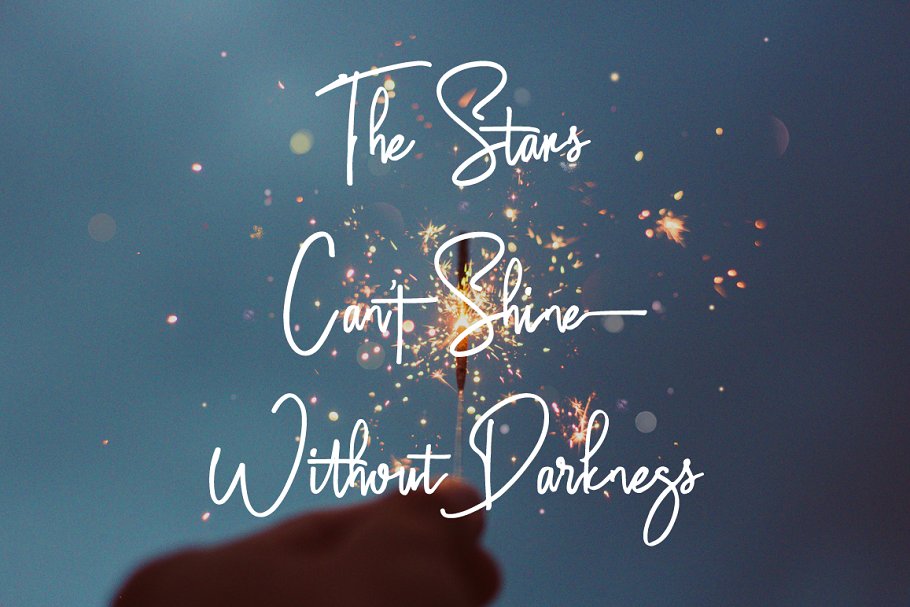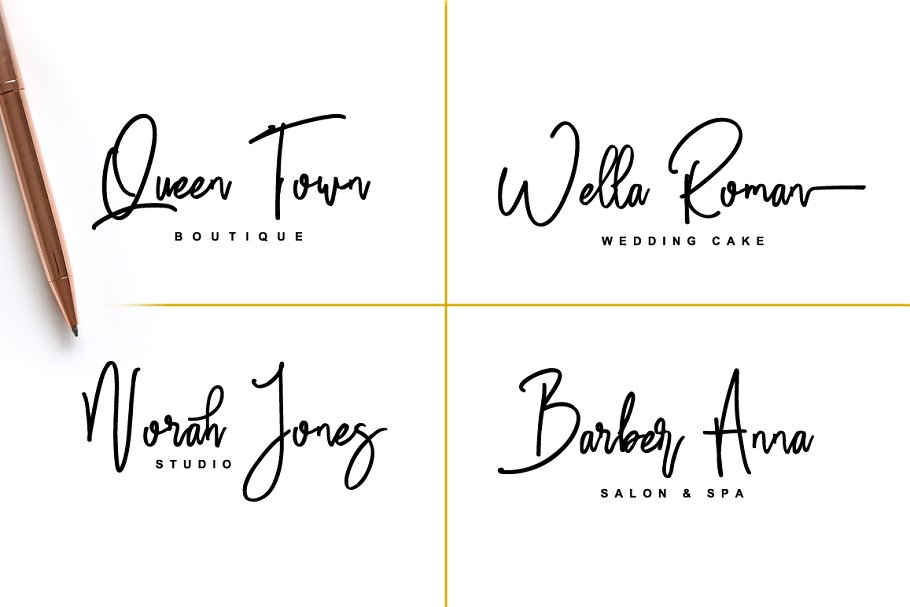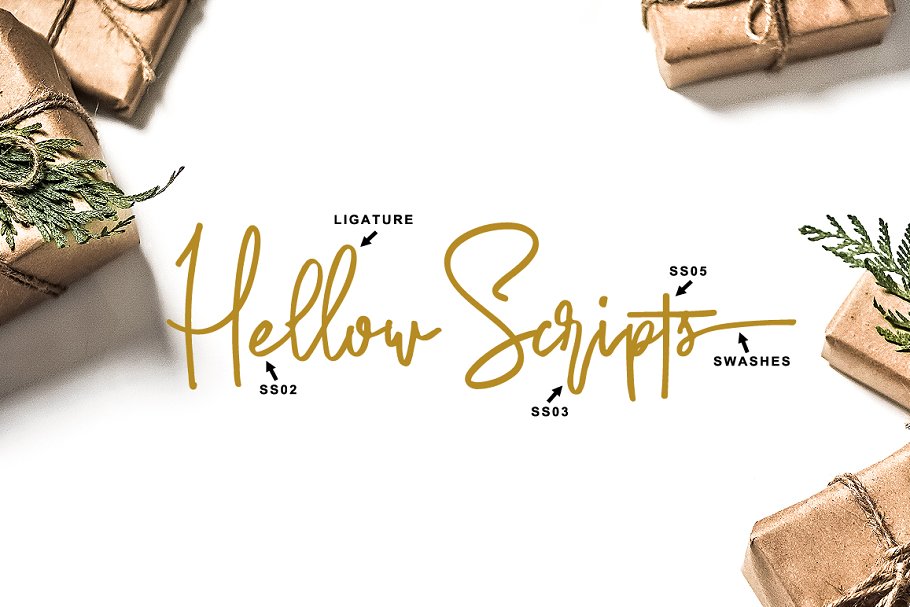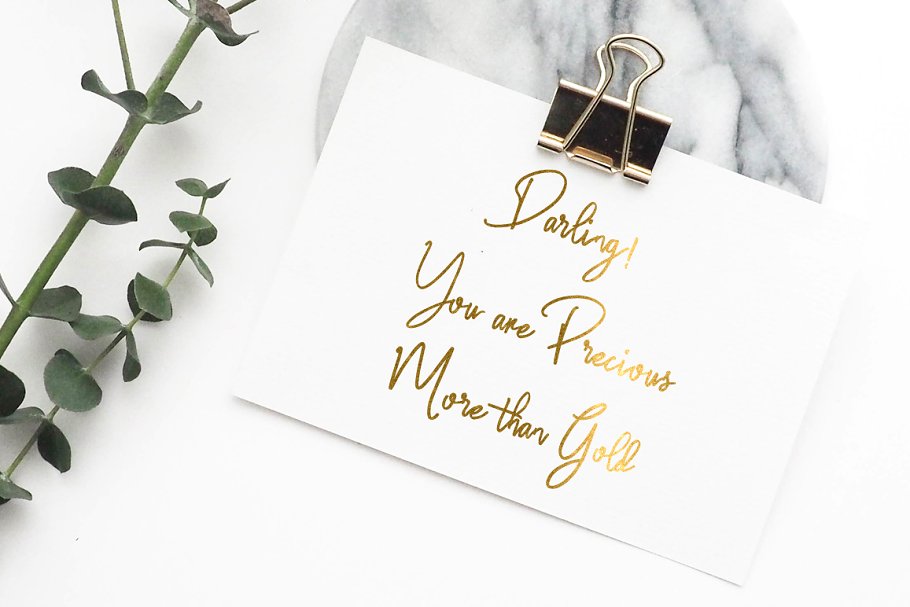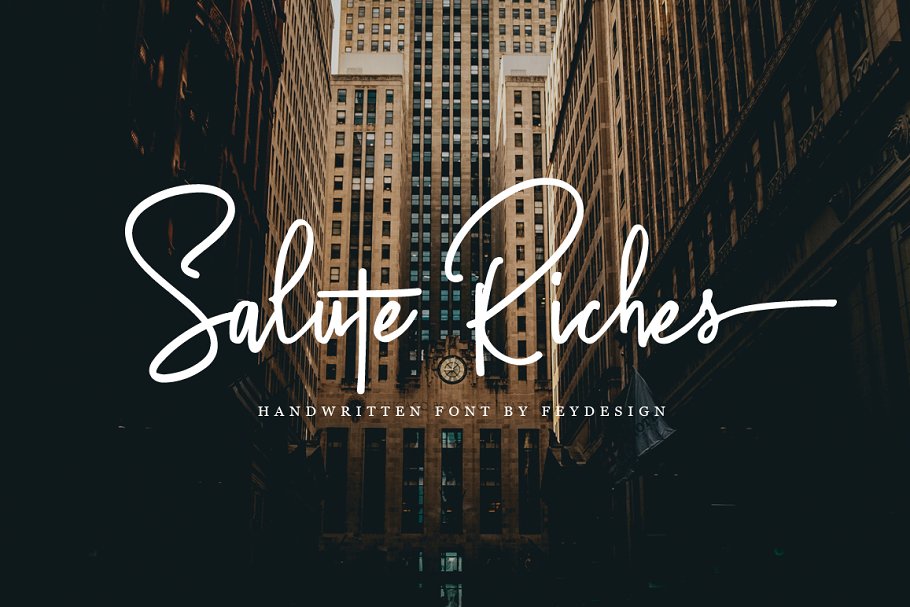
Salute Riches Handwritten Font
Salute Riches Font – a new handwritting font by FeyType. For those of you who are needing a touch of elegance and modernity for your designs, this font was created for you! It is a multi purpose signature font. Salute Riches is Handwritten script font with handlettering pen Style, so much opentype feature include of the font. Suitable for design, element design, wedding, event, t-shirt, logo, badges, sticker, and awesome work, etc…